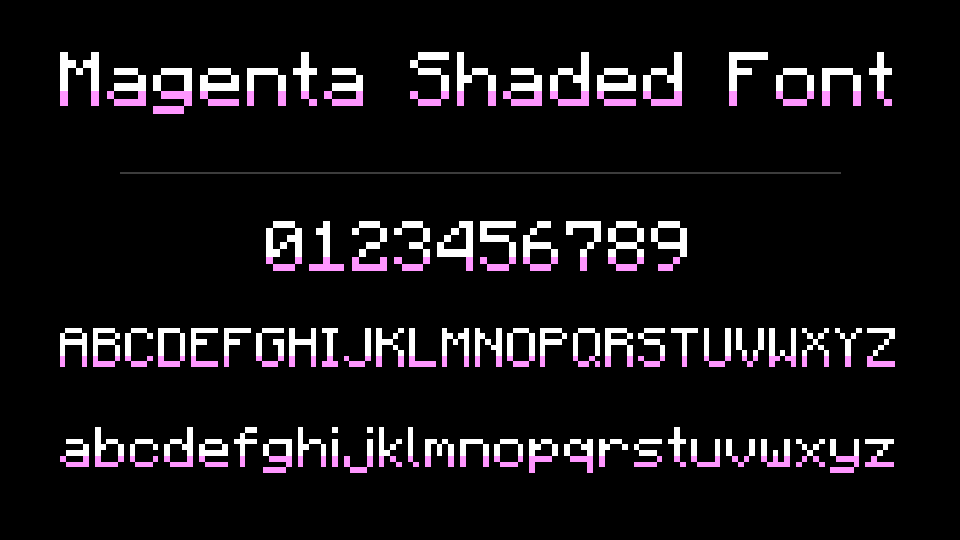
Magenta Shaded Font
Magenta Shaded Font adds a soft magenta shade to the bottom of every letter in Minecraft's font, so text gains depth without a single glyph shape changing. Shades ASCII, accents and the enchanting-table alphabet. Inspired by philliamm's Shaded Font.